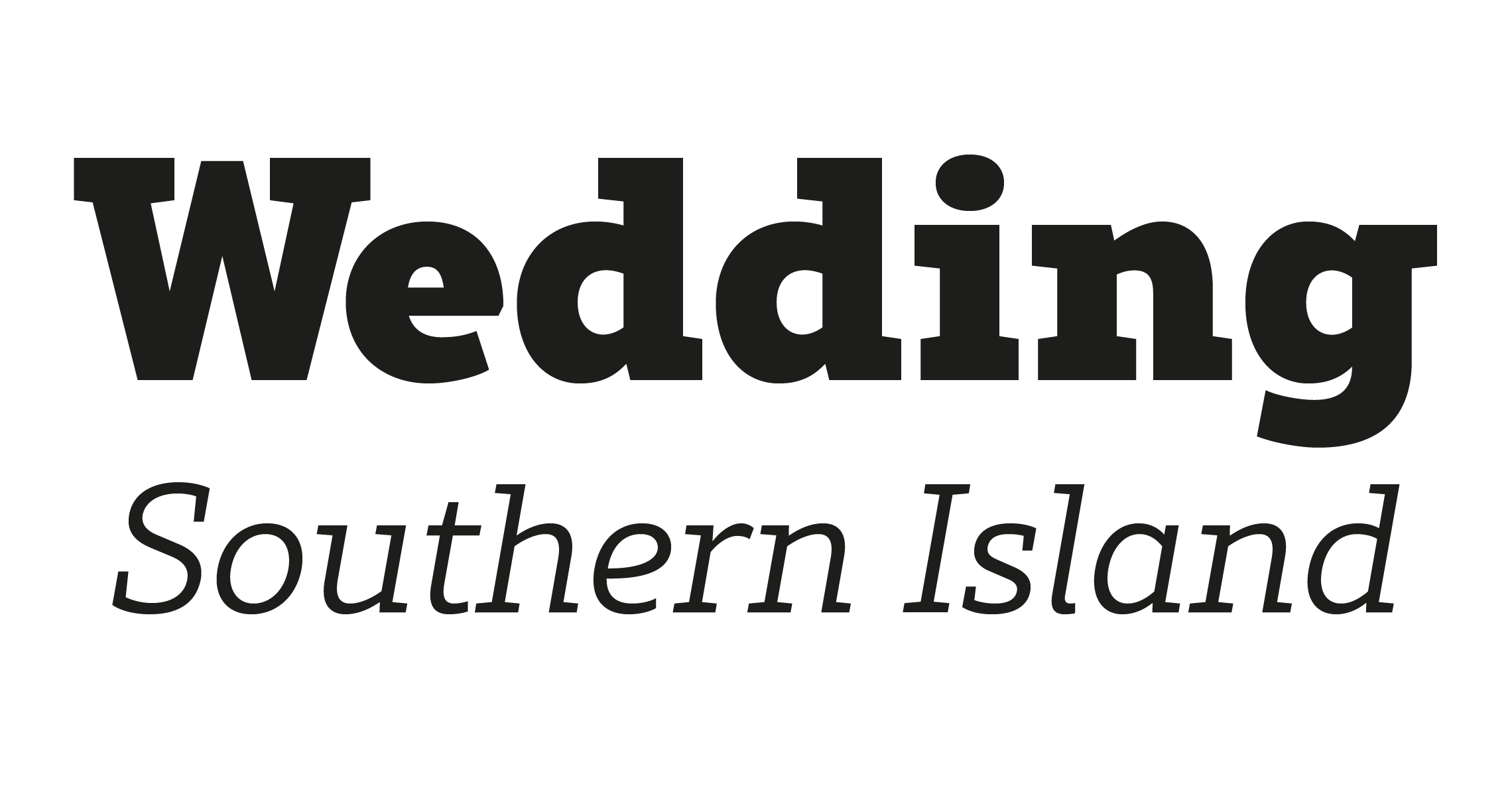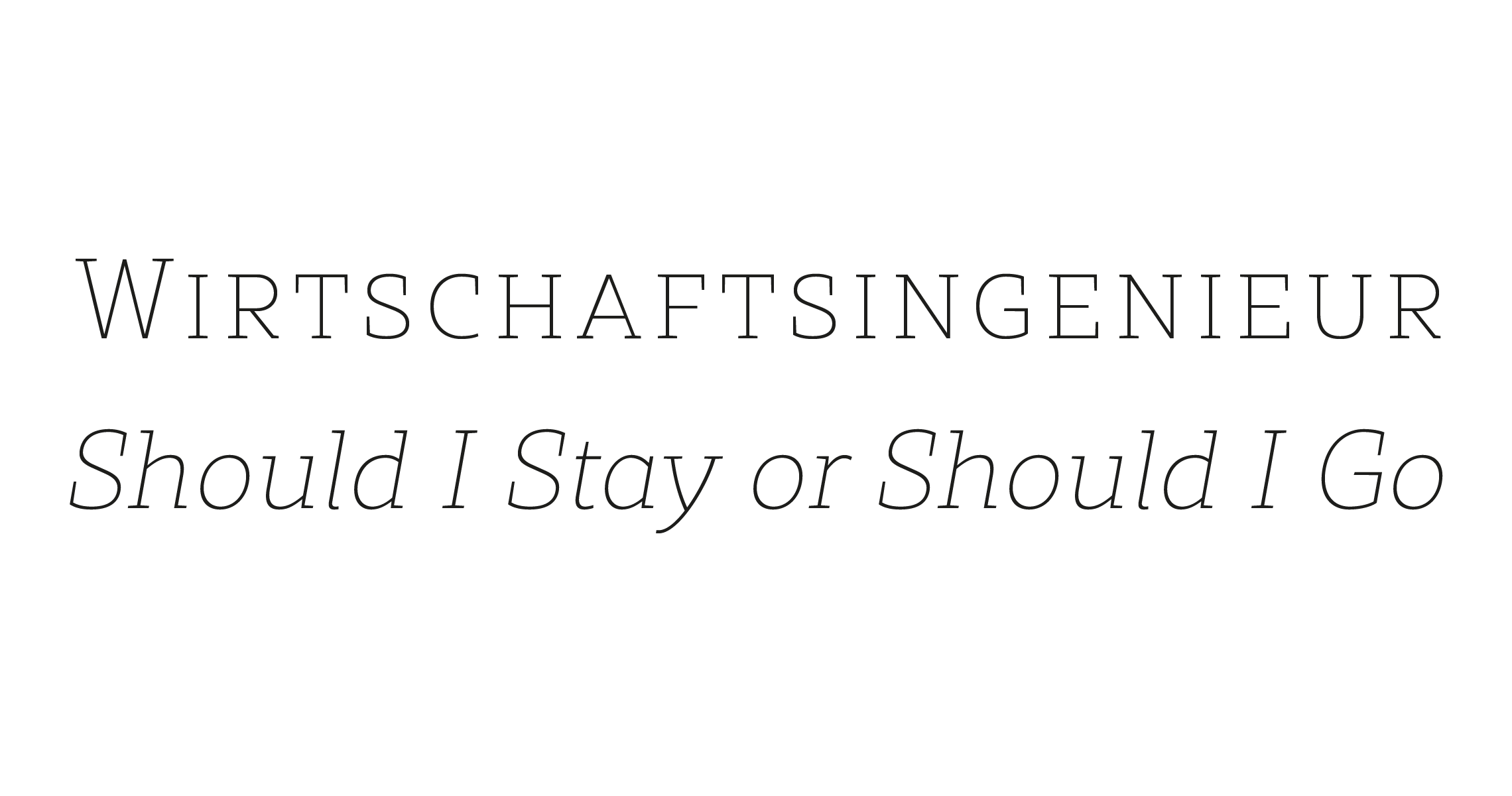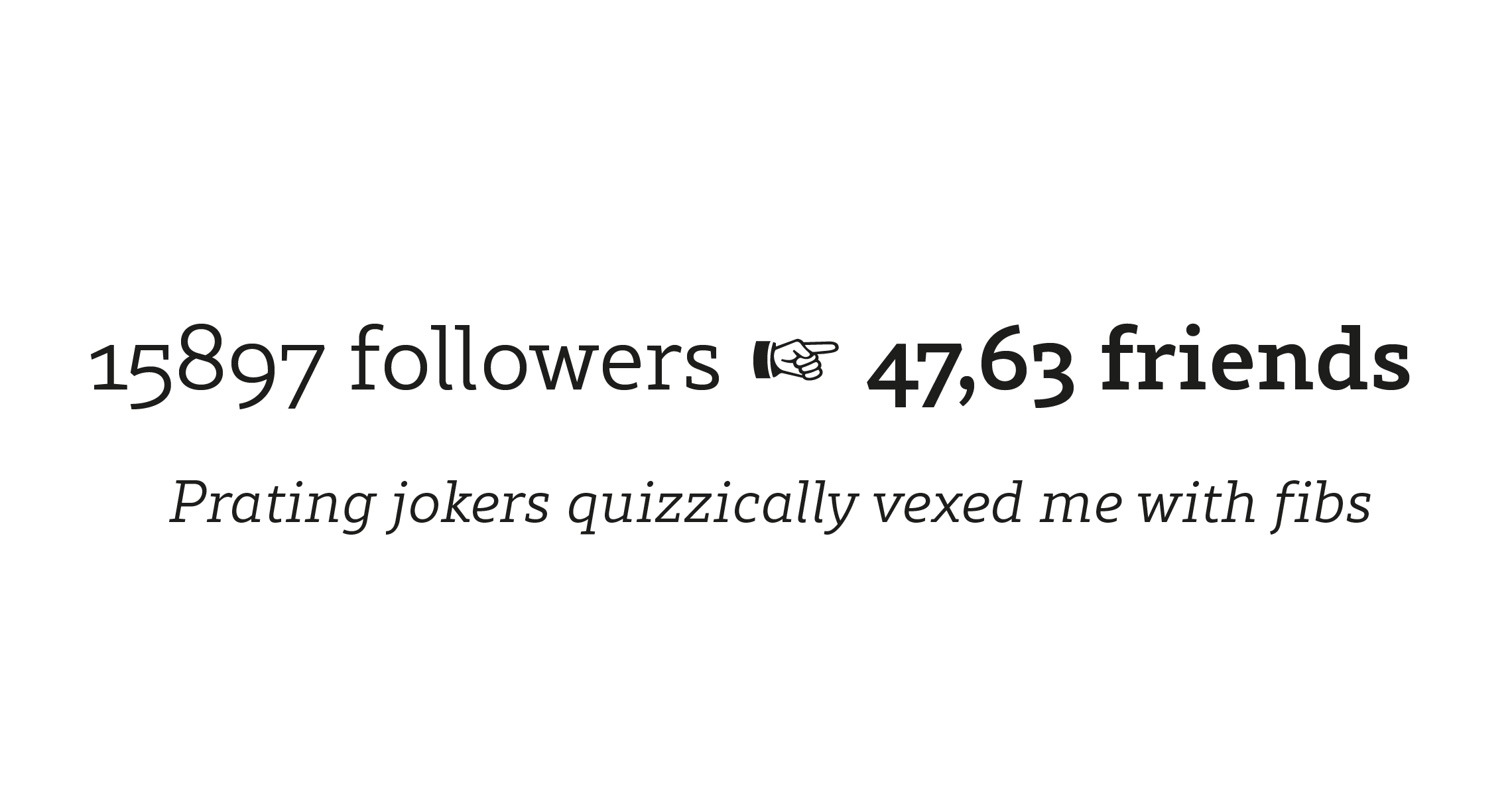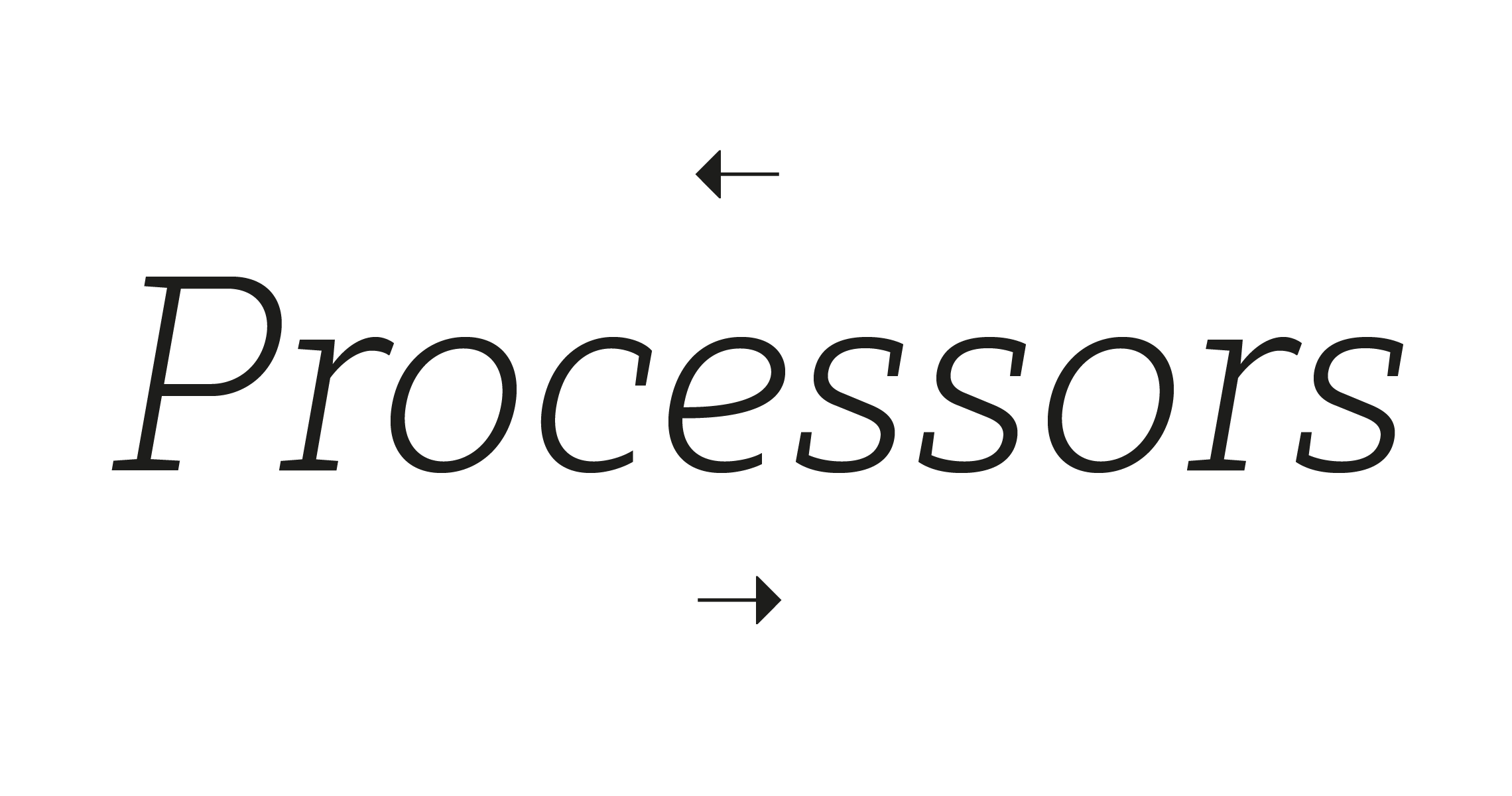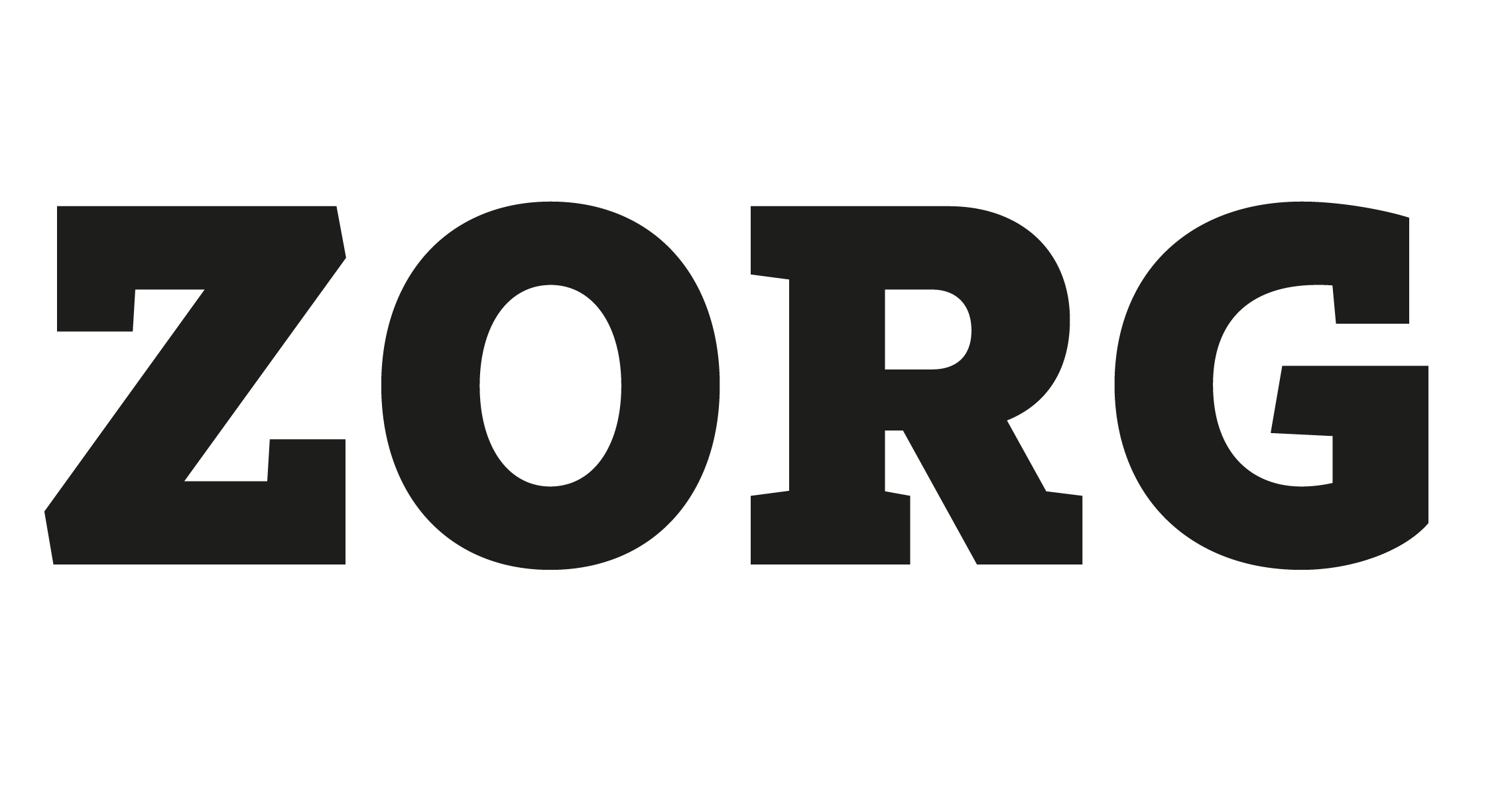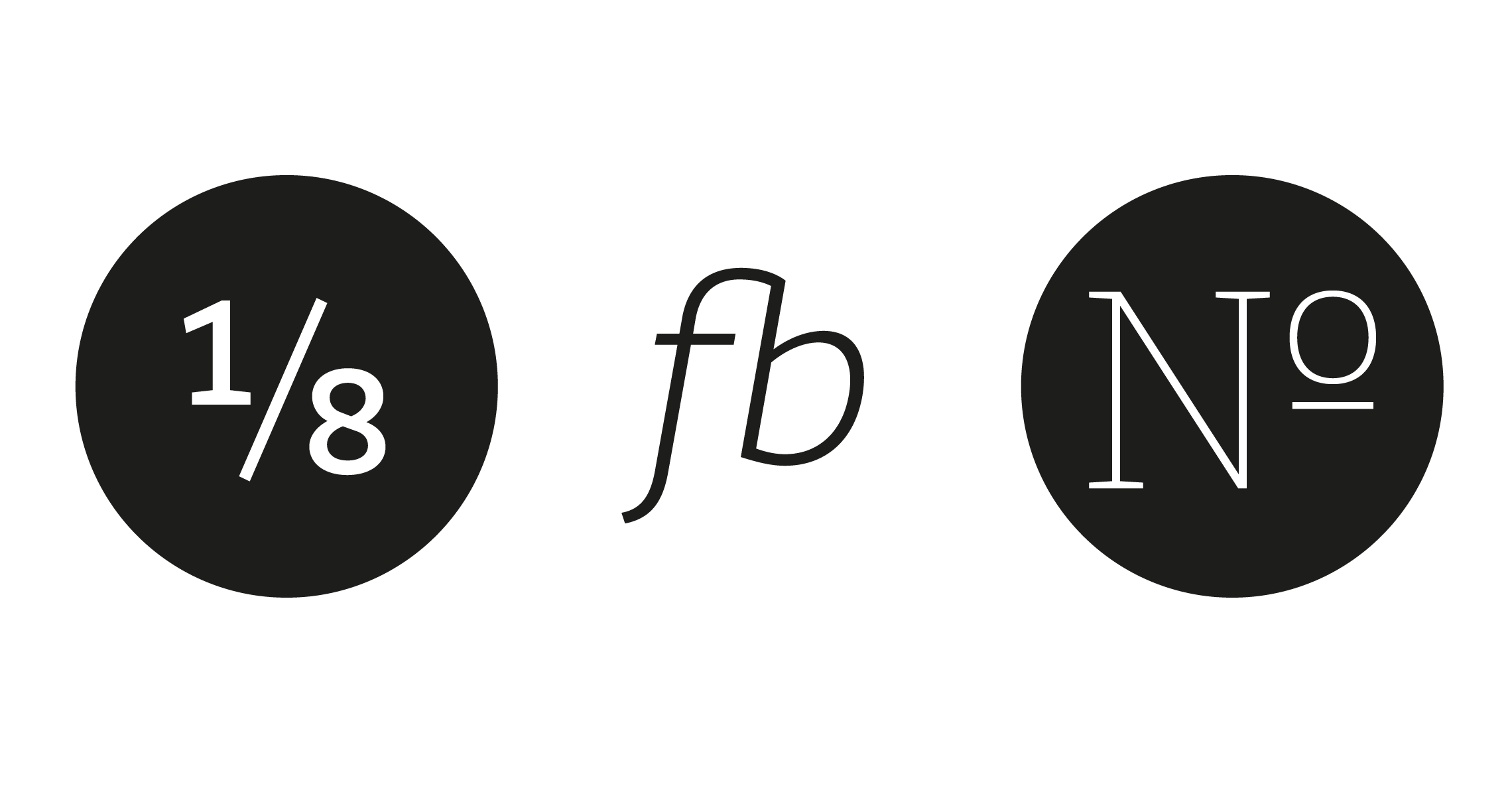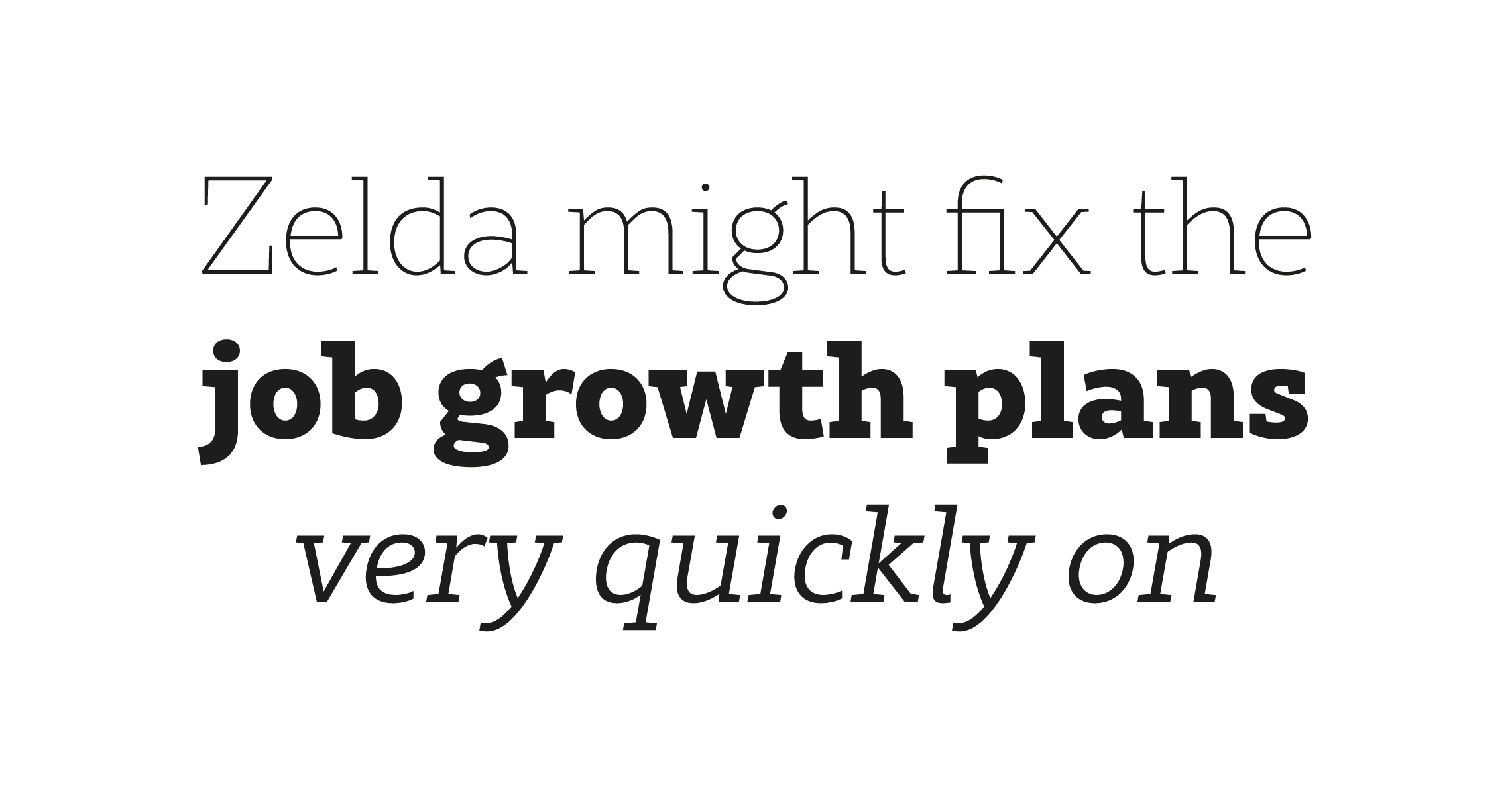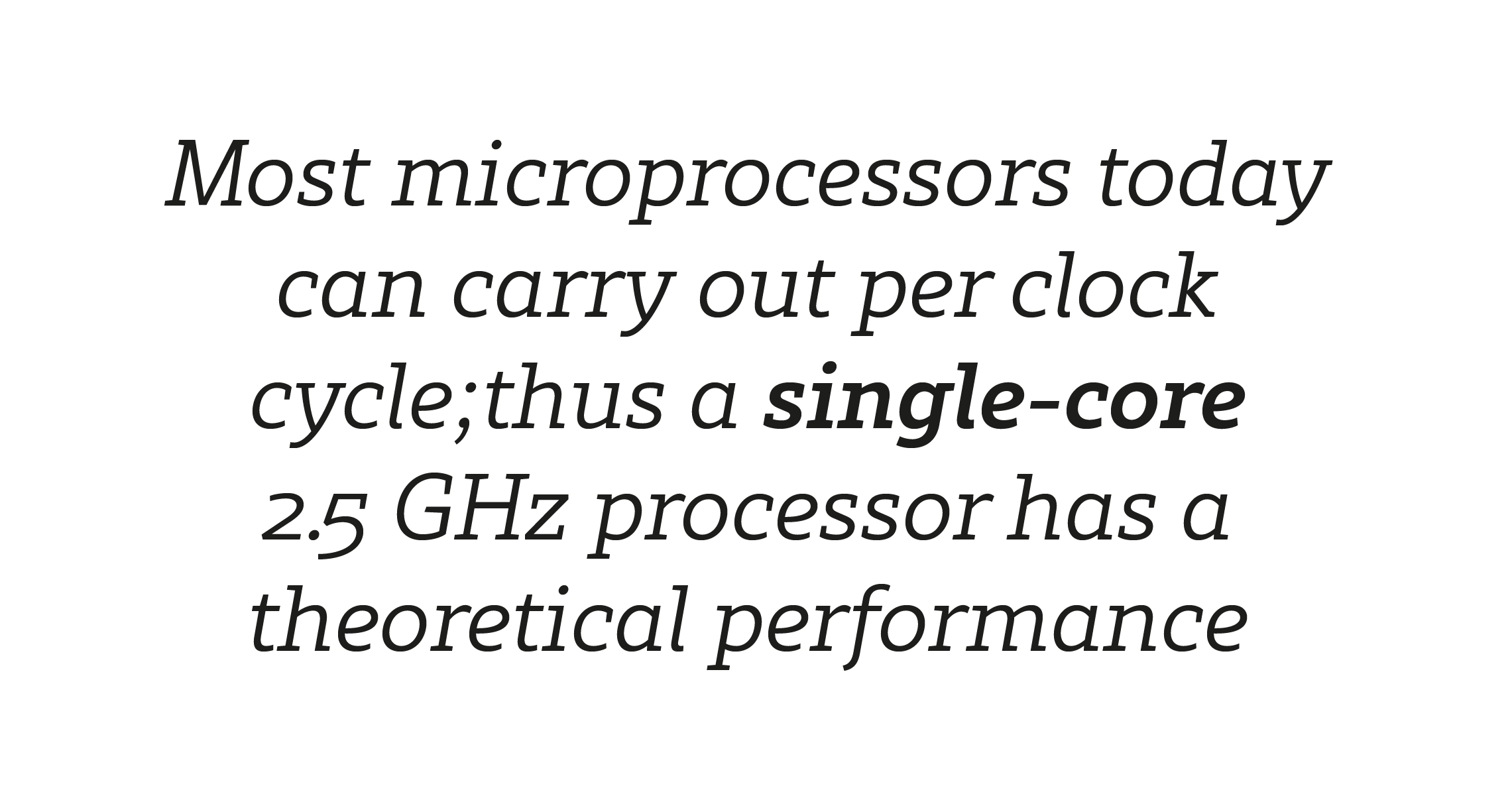
Rival Slab
Circumambulated !
A touch of modernism for all kinds of projects
With a very modern and rounded look, this new font family is ideal for creating headlines, brands, websites, signage, editorials and much more. Designed to integrate perfectly the other styles of the same family, Rival Slab will be the ideal companion of Rival Sans, Rival Sans Narrow or the serif version of Rival. With its powerfull Opentype functions, Rival Slab will easily cover the typography needs of the most demanding graphic designers with extended functions such as case sensitive forms, small caps, ligatures, alternate characters, fractions, slashed zero, circled gures, pro kerning…It comes also with a complete range of figure set options.
Rival Slab has 8 styles with corresponding true italics to give more style in long texts. The OpenType features of Rival have an extended character set to support Central and Eastern European as well as Western European languages. For more info about the powerfull opentype features and the complete character map of Rival Slab, please download the PDF specimen here.